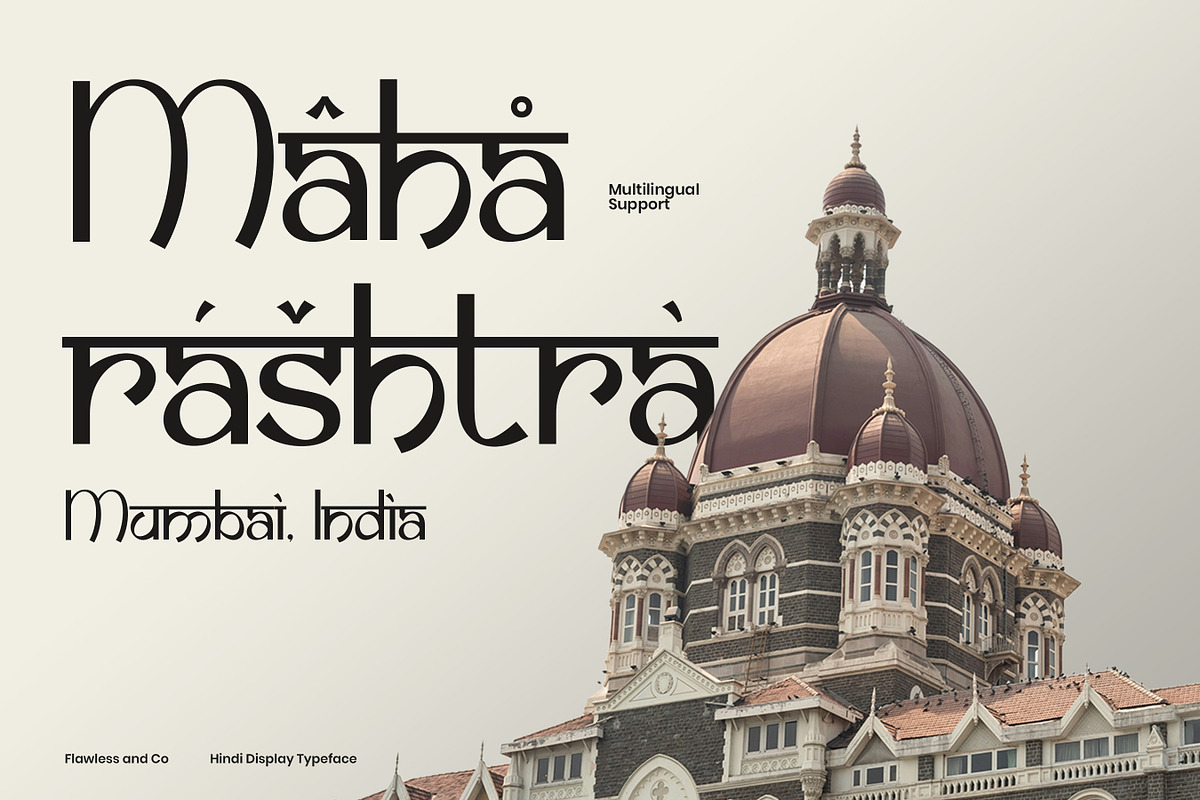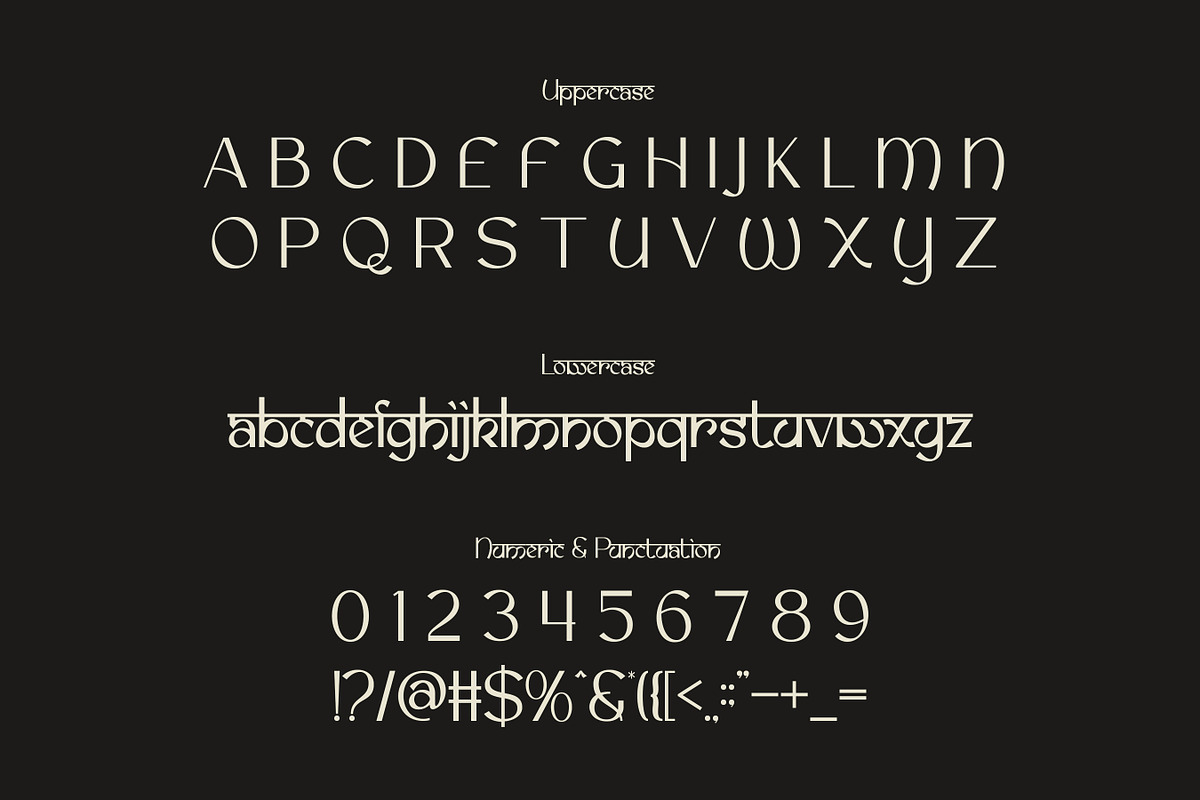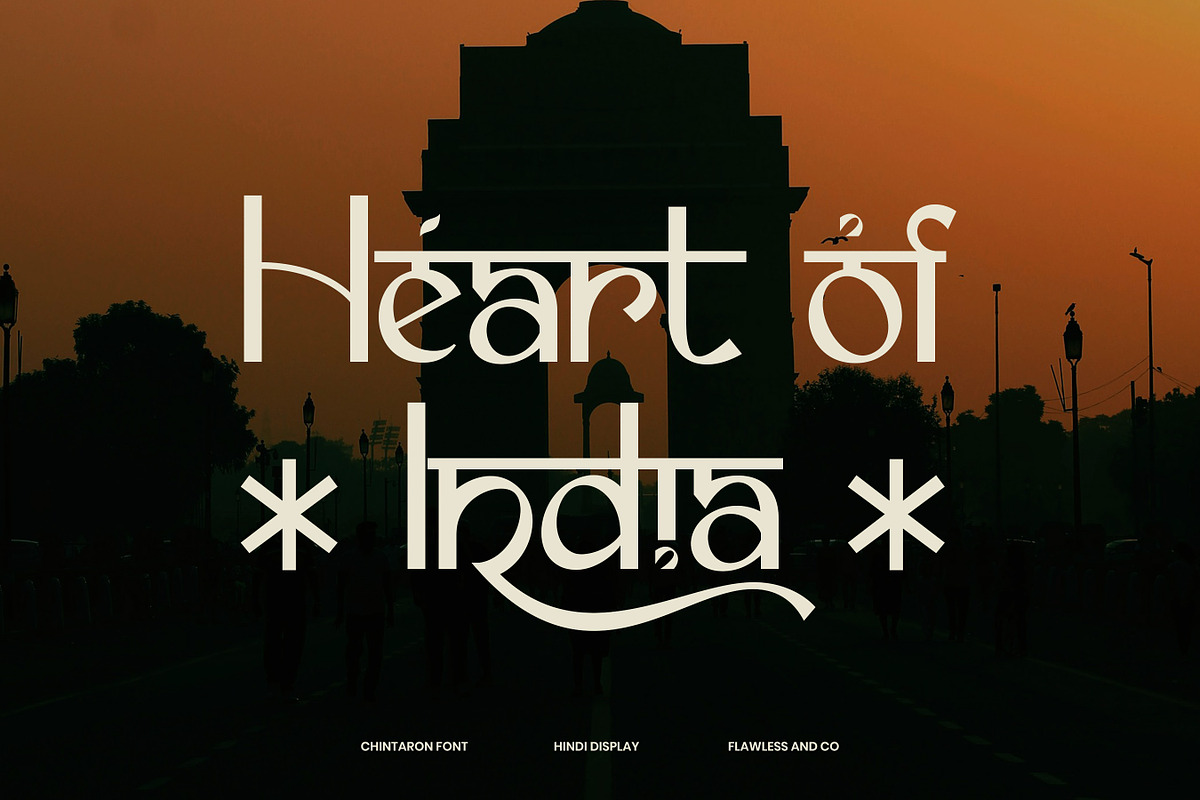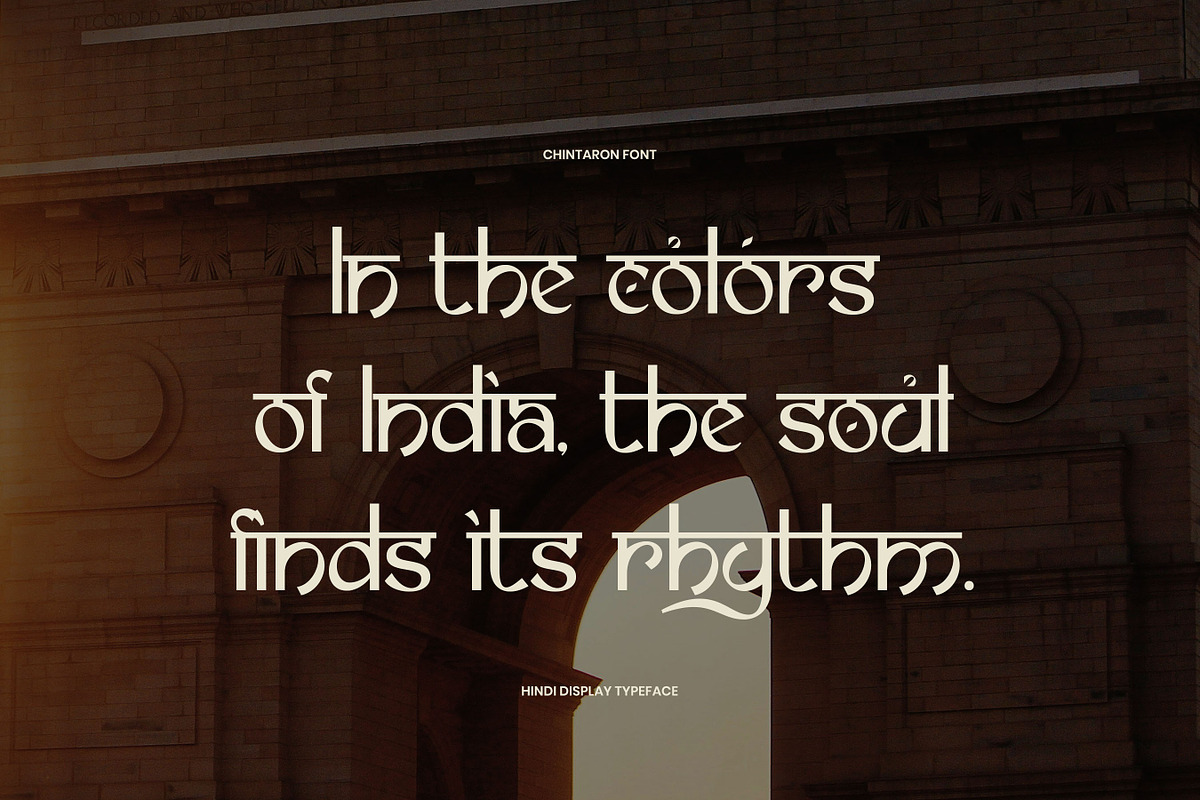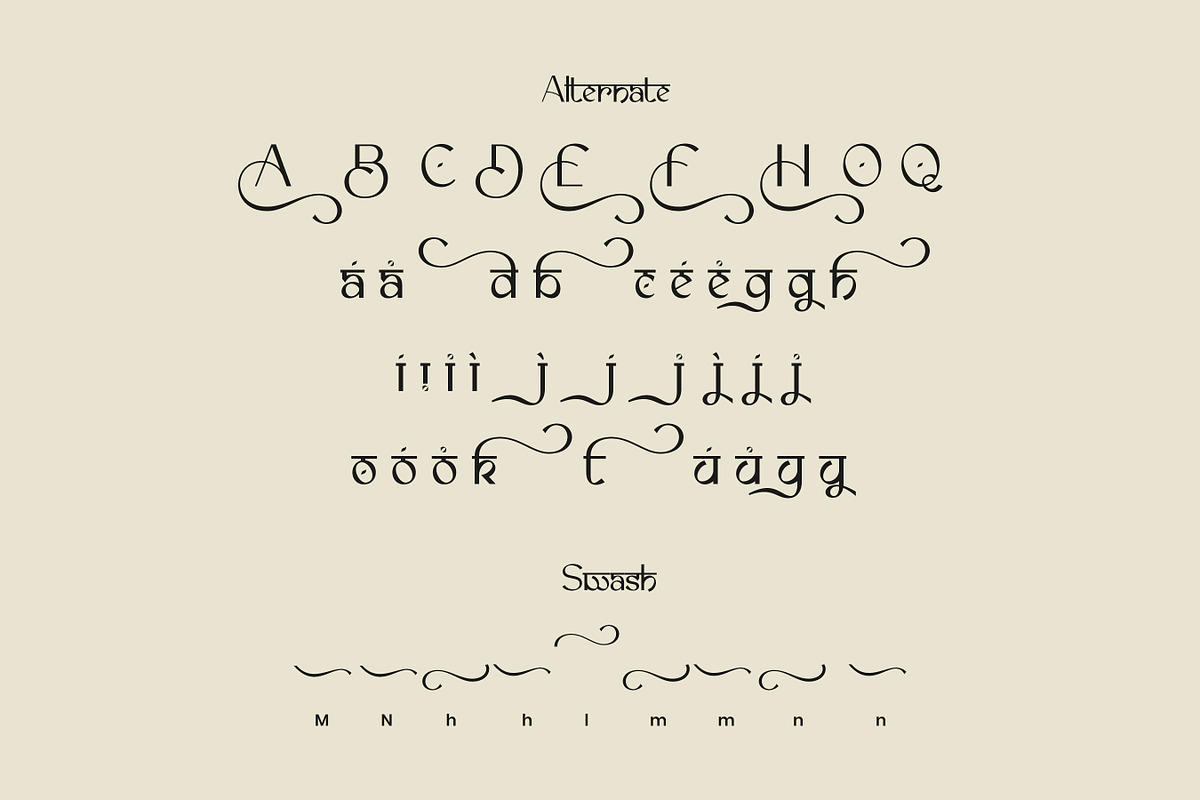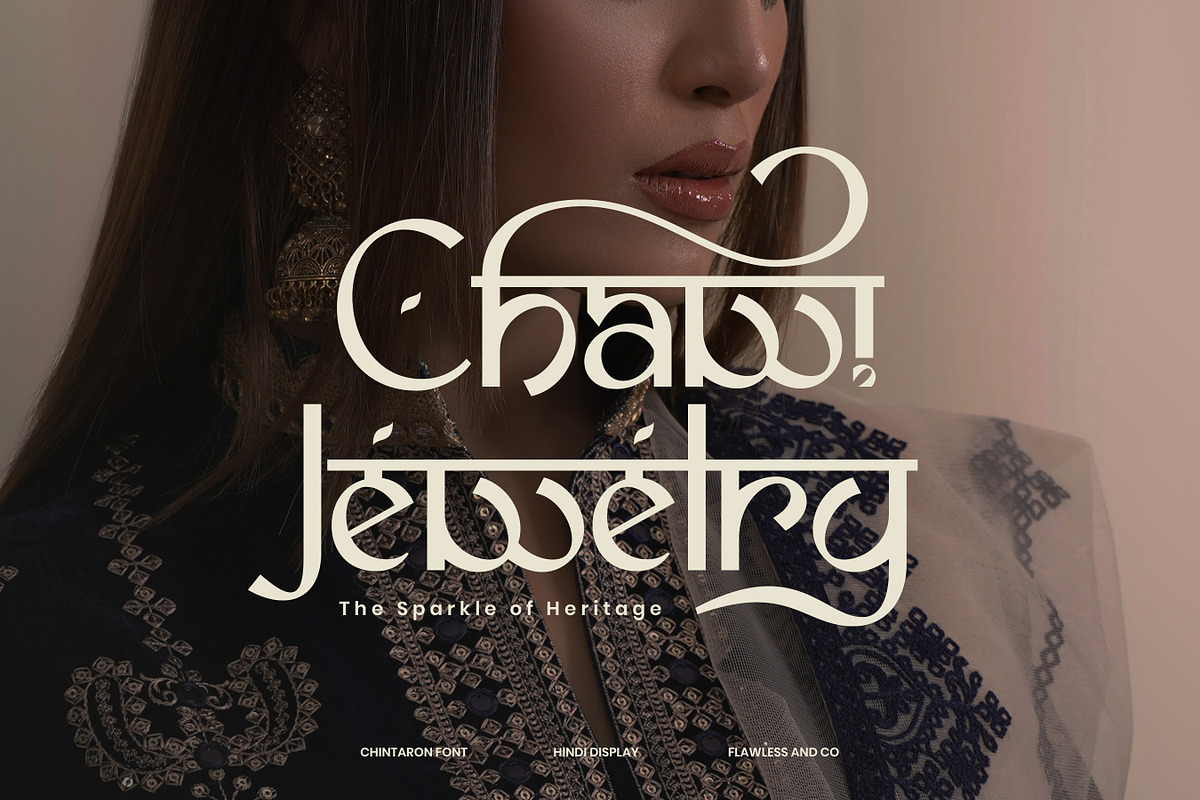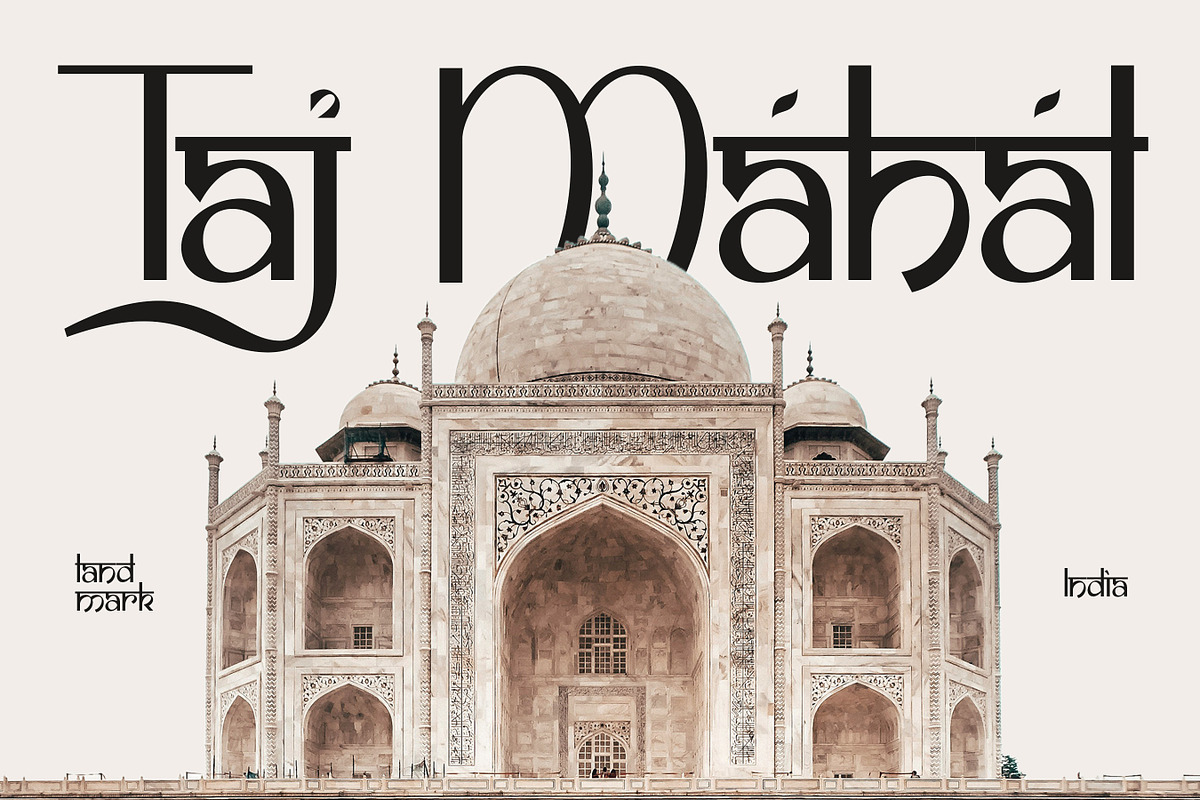
Chintaron - Hindi Display Font
Chintaron is a beautiful Hindi display font that blends traditional elegance with a touch of modern artistry. Inspired by the curves and lines of classic Indian scripts, Chintaron brings a graceful and cultural essence to every design it touches. Its unique letterforms feature intricate swashes and stylish strokes, making it both distinctive and versatile. Perfect for projects that need a rich cultural identity, Chintaron adds sophistication and charm whether used in headlines, branding, or artistic displays. With its refined detai ls and expressive character, this font transforms text into a visual statement that feels timeless yet contemporary.
Who Should Use Chintaron?
Chintaron is perfect for designers, brands, and creatives who want to bring cultural richness and artistic flair into their projects. It’s ideal for those working on traditional themes, modern ethnic branding, or designs that need a strong cultural identity. Whether you’re creating standout headlines, expressive posters, or unique logos, Chintaron is made for those who value elegance, heritage, and creativity in their typography.
A Must-Have Font for Brand and Logo Creators and Designers
Chintaron is a must-have for brand and logo creators who want to stand out with distinctive and meaningful typography. Its artistic curves and Hindi-inspired details make it perfect for crafting memorable logos, brand identities, and wordmarks that carry elegance and cultural depth. For designers aiming to add authenticity and uniqueness to their creative projects, Chintaron offers the perfect balance between traditional influence and modern design.
Why Choose Chintaron for Brand and Logo Projects?
Chintaron is the right choice for brand and logo projects because it blends cultural artistry with modern design sensibilities. Its Hindi-inspired strokes bring uniqueness and sophistication, ensuring every logo feels authentic and unforgettable. With its elegant balance of tradition and contemporary style, Chintaron gives your brand identity a strong character, making it instantly recognizable and visually striking. Whether you aim for heritage-inspired branding or a modern twist with cultural depth, Chintaron provides the versatility and impact you need.
Chintaron is suitable for:
- Brand identities and logo design
- Luxury packaging and product labels
- Jewelry and fashion branding
- Editorial layouts and magazine titles
- Cultural and heritage projects
- Wedding invitations and event stationery
- Social media graphics with an artistic touch
- Signage and display purposes requiring elegance and distinction